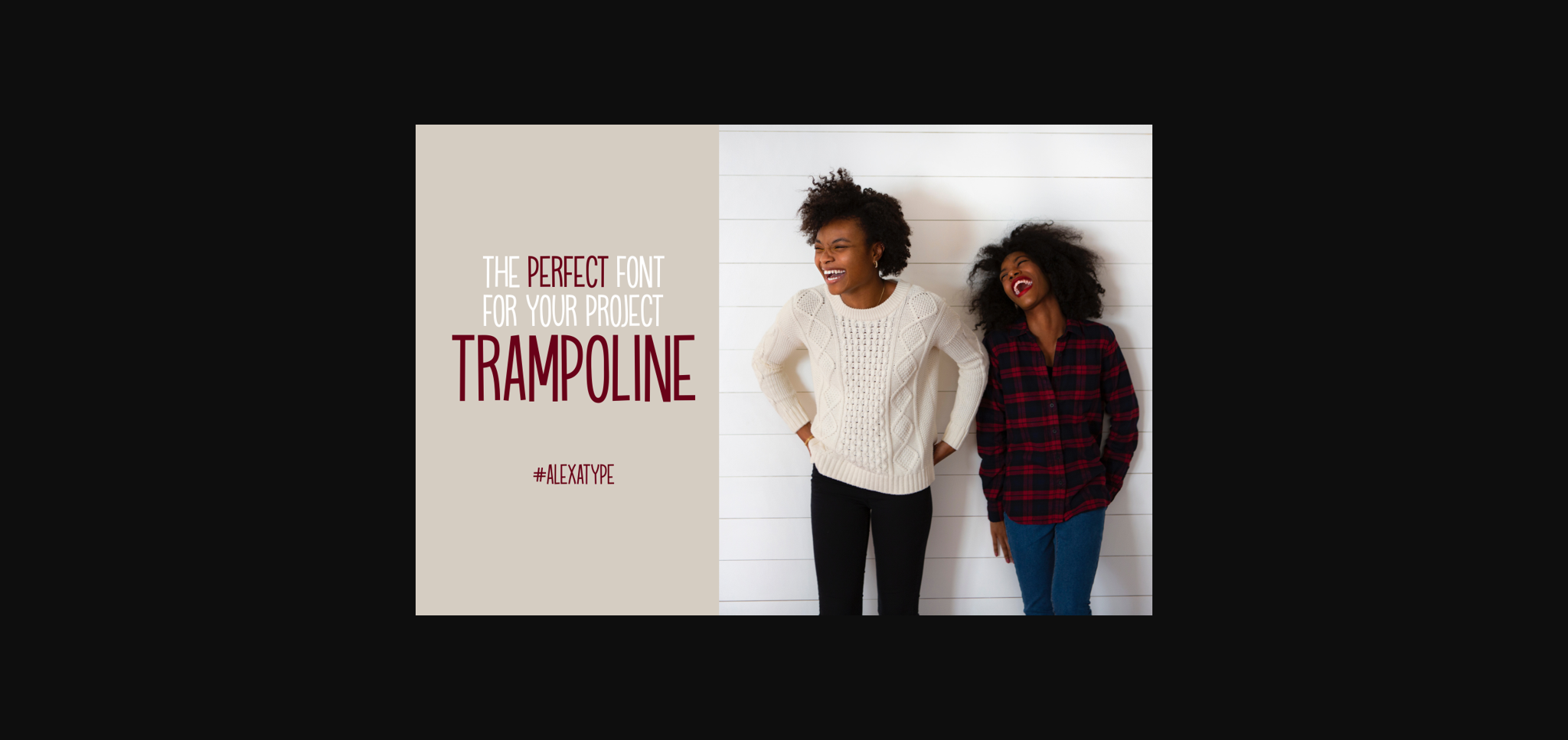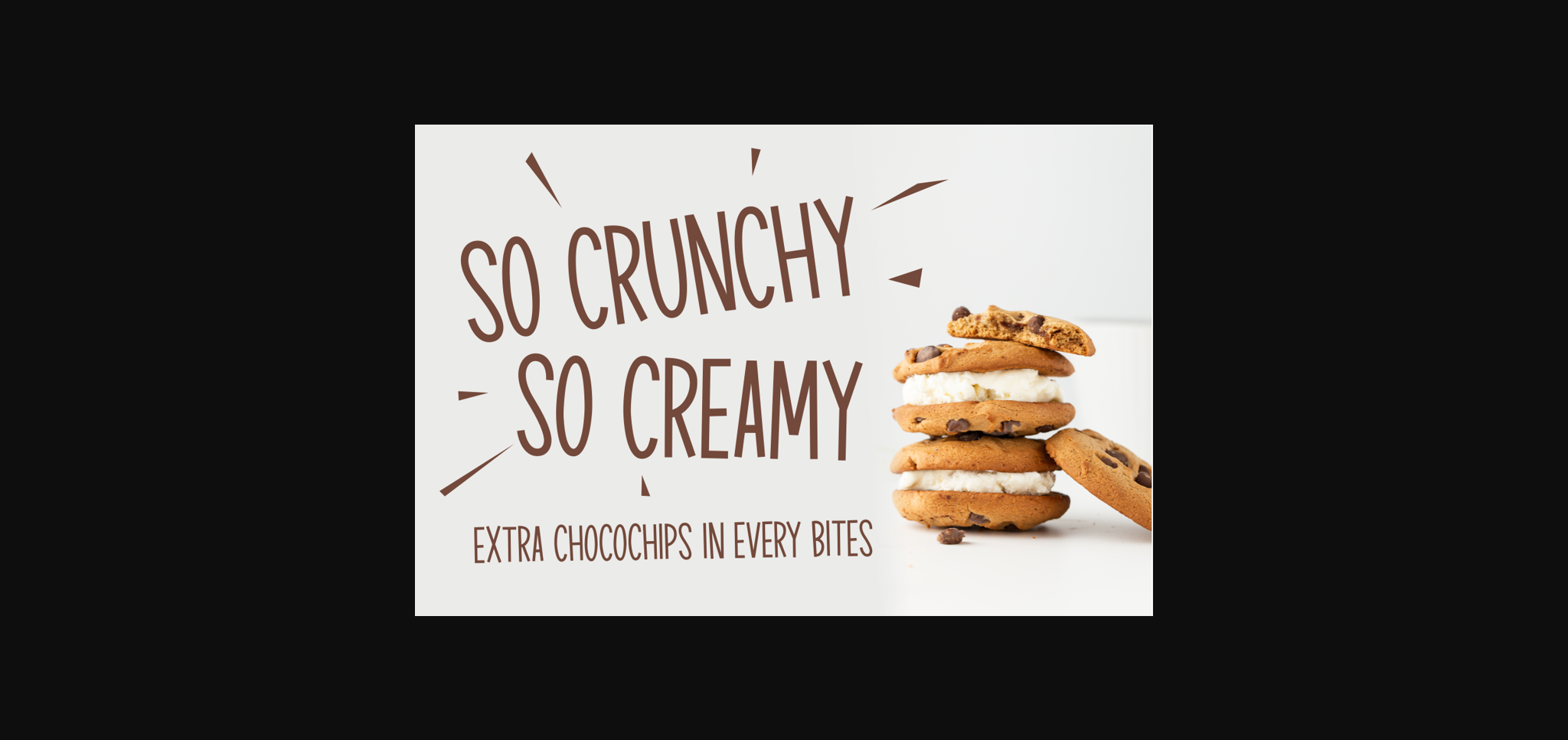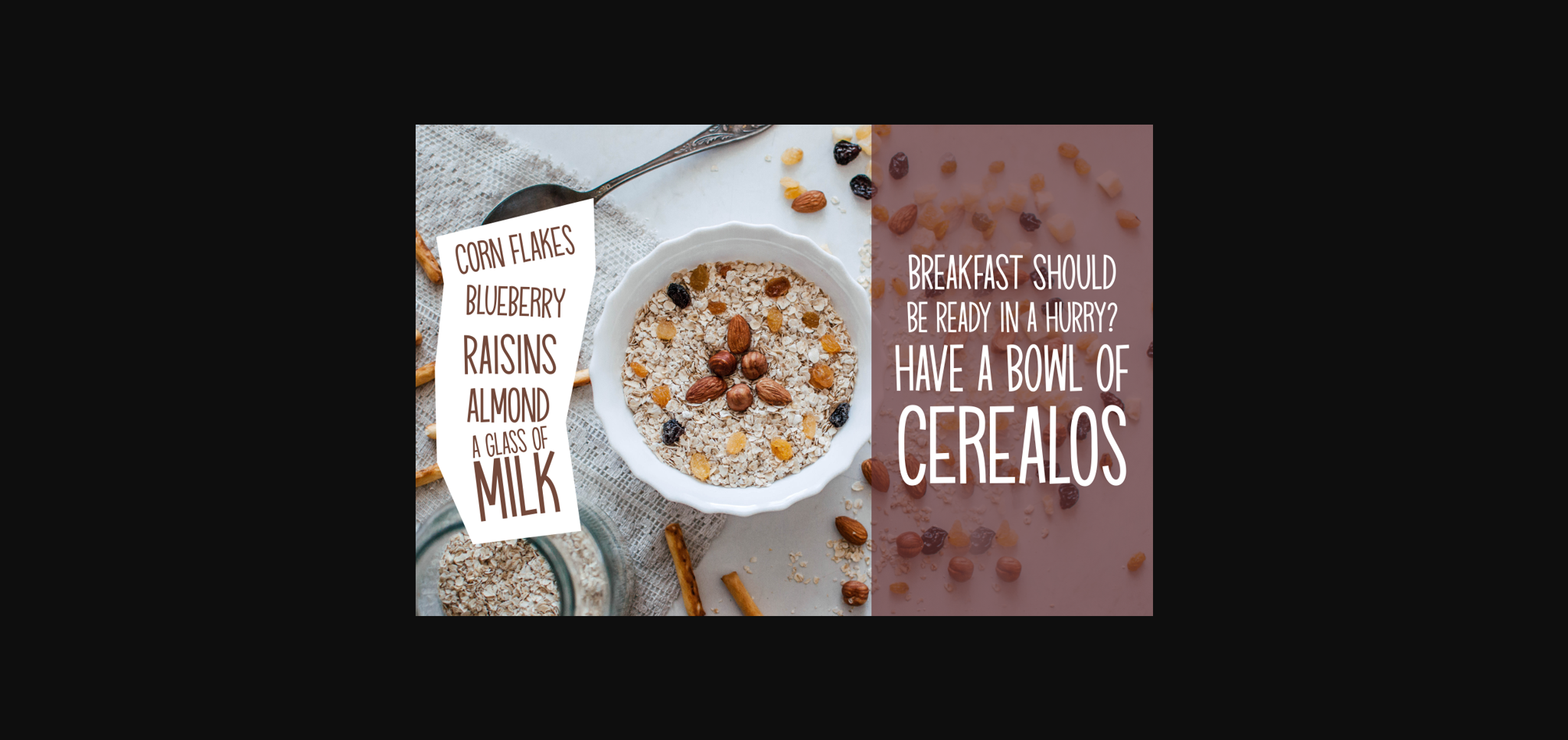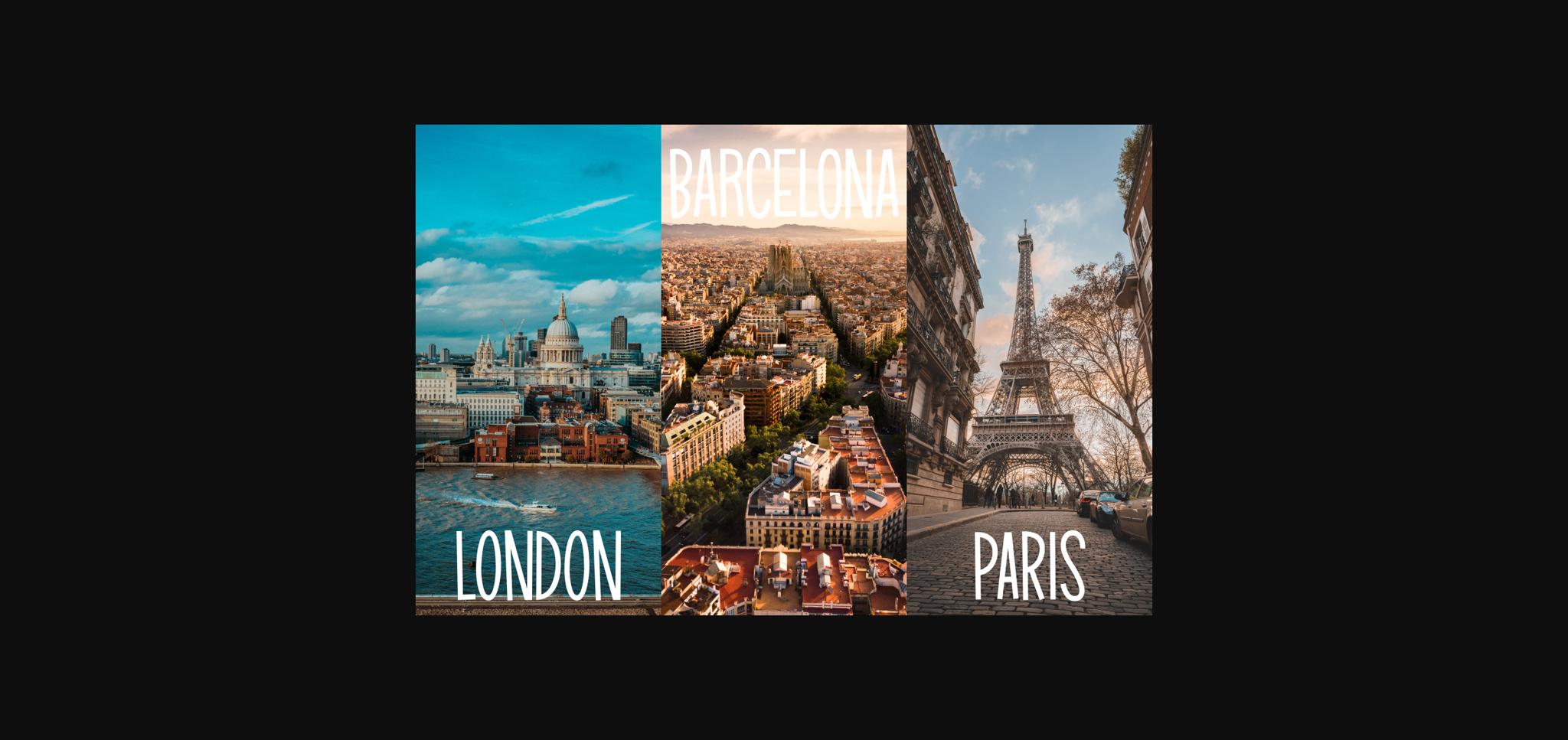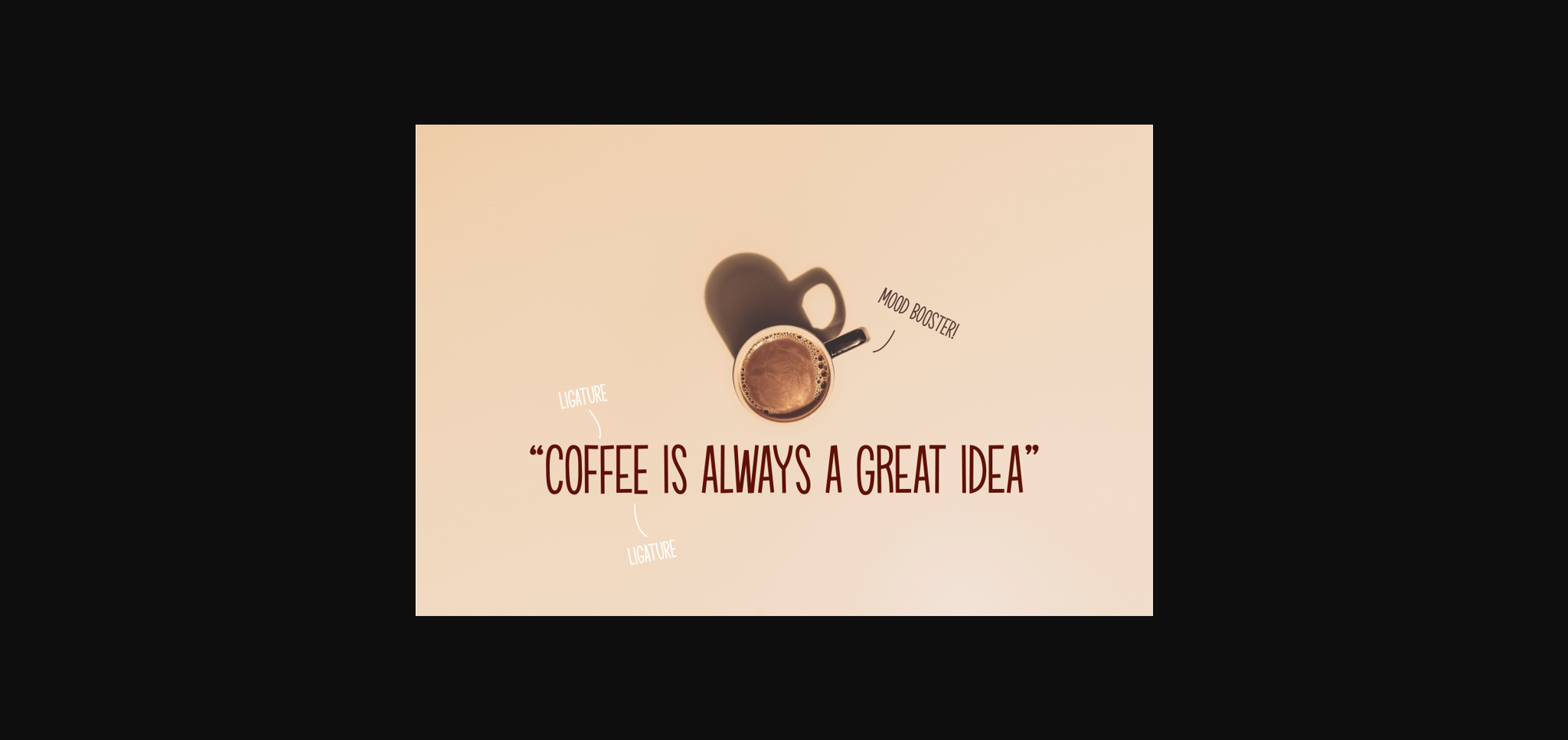
HomeSans Serif FontsTrampoline Font Sans Serif Fonts Trampoline Font FacebookXPinterestWhatsApp 1 of 7 ... Trampoline Font Poster 2... Trampoline Font Poster 3... Trampoline Font Poster 4... Trampoline Font Poster 5... Trampoline Font Poster 6... Trampoline Font Poster 7... About Trampoline Font Trampoline is a casual and neat sans serif font. It can easily be matched to an incredibly large set of projects, so add it to your creative ideas and notice how it makes them stand out! DOWNLOAD NOW People also explored Rustic Metal Tin Enamel Camping Mug Mockup Sartadi Script Font Kasmer Font Estung Font Trust Font Handy Caps Small Sans Font Kathen Font Guondrong Font Anisha Font 257 0 TagsTrampoline Font Previous articleQuater FontNext articleLeafer Font LEAVE A REPLY Cancel reply Comment: Please enter your comment! Name:* Please enter your name here Email:* You have entered an incorrect email address! Please enter your email address here Website: Save my name, email, and website in this browser for the next time I comment. Personal Use Free Valentines Day Personal Use Free Read more about this font Beloved Script Personal Use Free Read more about this font BD Pipe Personal Use Free Read more about this font Pan Pizza Personal Use Free Read more about this font BLOG How to Install and Use Fonts on Windows, macOS, and Web Projects How to Install and Use Fonts on Windows, macOS, and Web Projects Fonts are a crucial part of design and branding. Whether you’re designing a... Free Fonts Risk: Why Free Fonts Can Be Dangerous for Designers Using Fonts in Digital Marketing: Tips to Strengthen Your Brand Identity Best Fonts for YouTube Videos: Make Your Thumbnails Stand Out